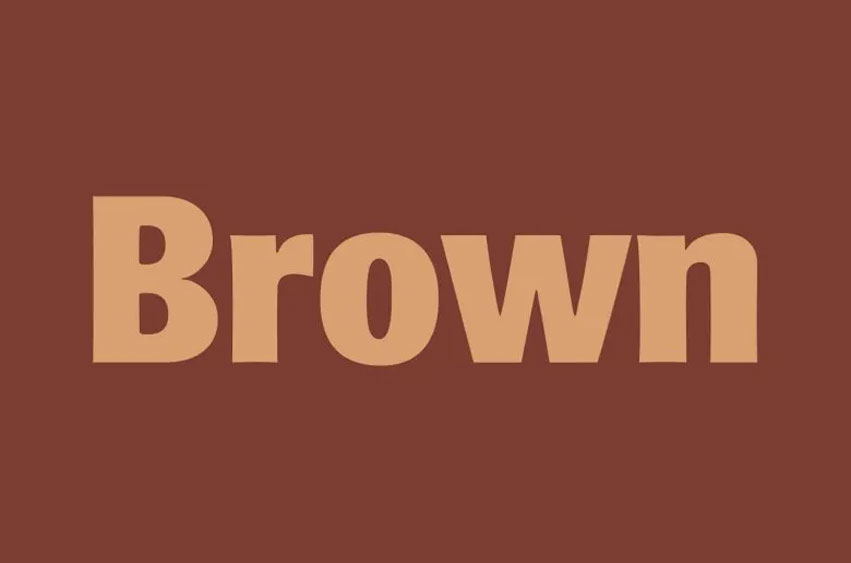
Brown Family Font
Brown Family Font is a highly recommended serif sans style font designed by Swiss graphic designer Aurele Sack from Lausanne, Switzerland and distributed by the Type Foundry Lineto. It can be easily recognized by its more traditional looking with a slight display of grotesque with reduced sizes in the capitals compared to other fonts of similar type. Hence this type of font is suitable for programs that need utmost attention such as number lining or design works that have to be very much comprehensible.
This is the fundamental reason why any designer would be elated to use this font – every character is capable of expanding at large sizes while still maintaining excellent legibility and an even more beautiful and unique appearance.